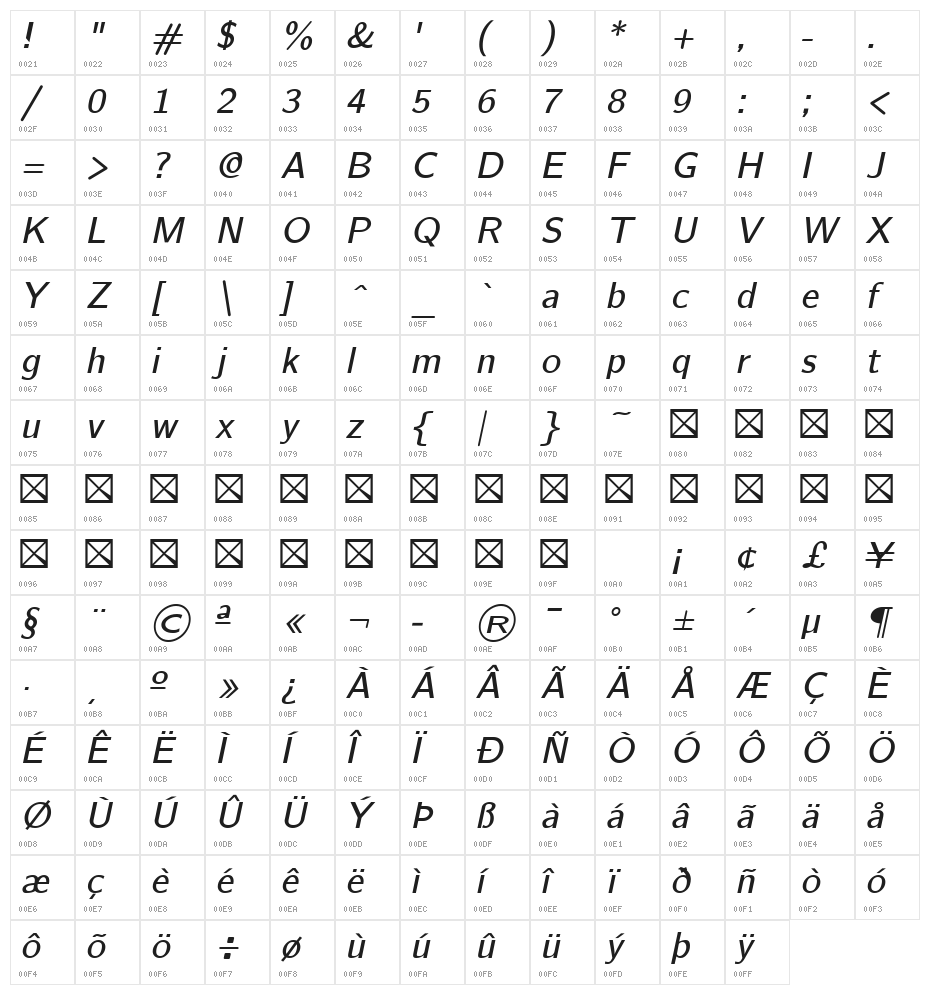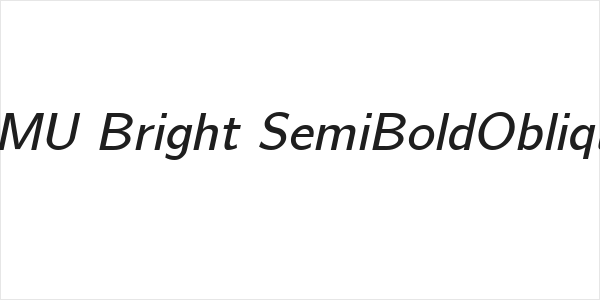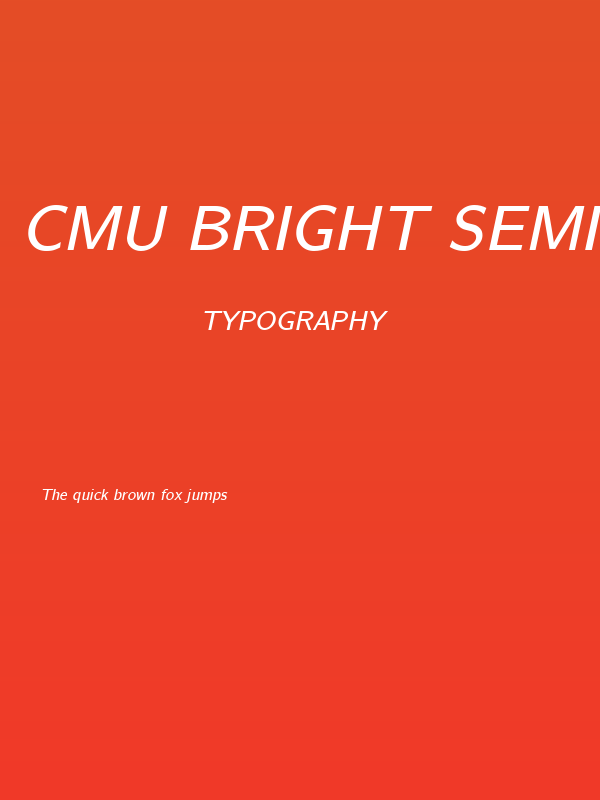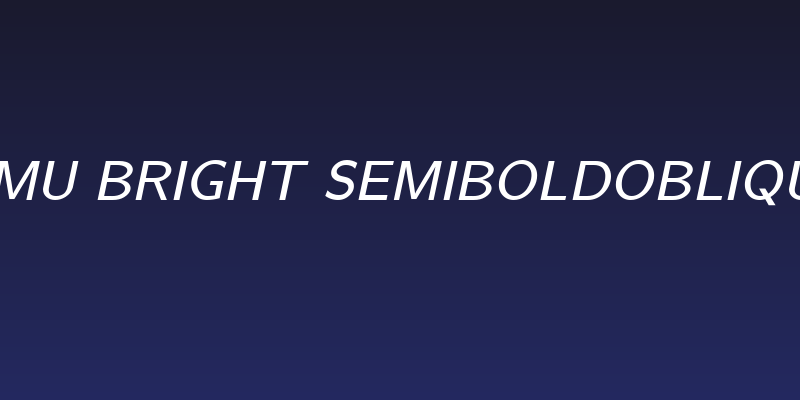
CMU Bright SemiBoldOblique Font
CMU Bright SemiBoldOblique Description
This font features a sleek, modern design with a semi-bold weight and an oblique style, giving it a dynamic and forward-leaning appearance. The characters are well-proportioned with a slight slant, enhancing readability while maintaining a stylish look. The uppercase and lowercase letters are distinct, with clean lines and smooth curves. Numerals are clear and consistent, making them suitable for various applications. The special characters are well-integrated, ensuring versatility in design projects.
| Use Case | Headlines, Logos, Editorial Design |
| Proposed Projects | Ideal for branding, advertising, and editorial design where a modern and dynamic look is desired. |